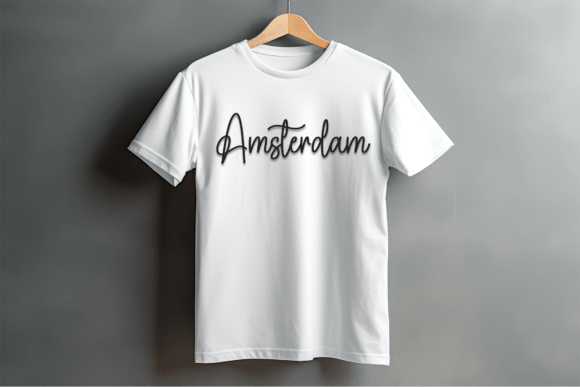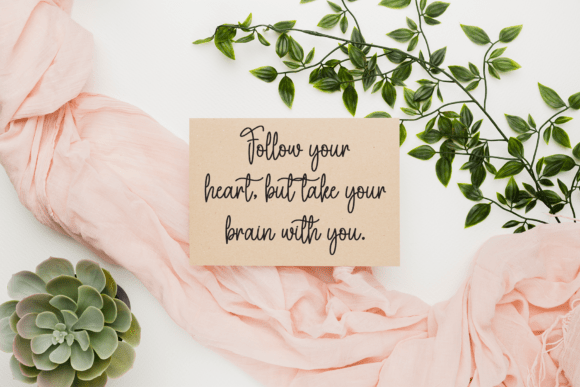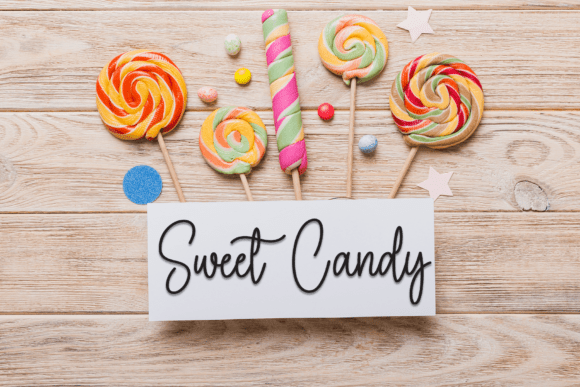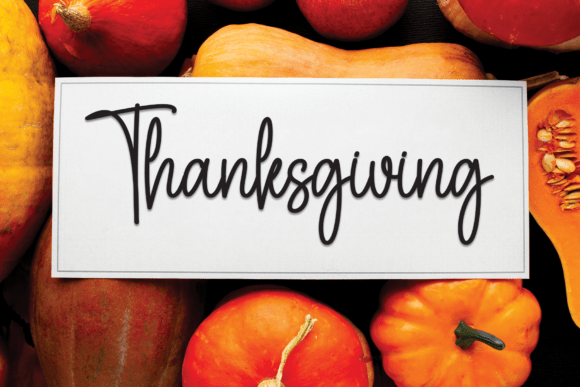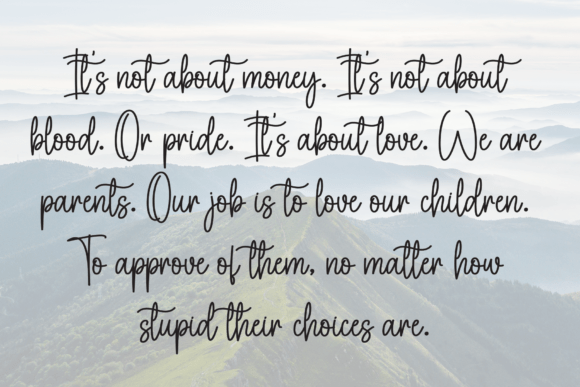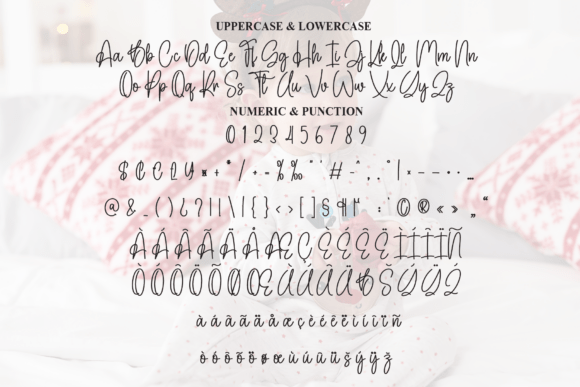
Introduction to Baby Northern Font
Baby Northern brings a joyful, contemporary flair to handwritten fonts.
With its tall, slightly playful lettering and dynamic baseline, itโs great for baby apparel, holiday greetings, nursery prints, or anything that needs a warm, modern touch .
Key Features of Baby Northern Font